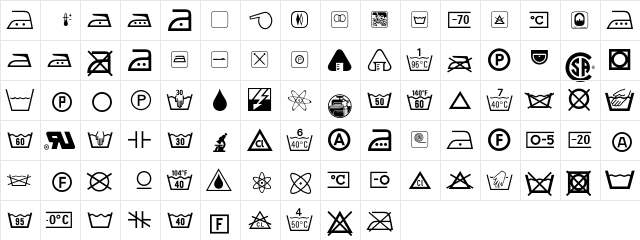
IndustryEngineering P01 Font Preview
IndustryEngineering P01
IndustryEngineering P01 Font Details
Design Context for IndustryEngineering Typeface
IndustryEngineering is a composed and adaptable typeface that performs quietly and consistently across a wide range of design contexts.